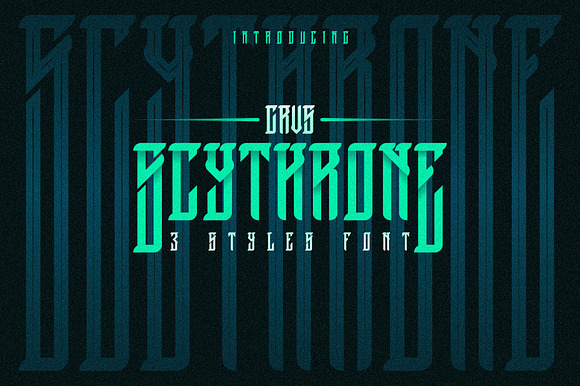
Grvs Scythrone Font
Grvs Scythrone Font by spaceshipstudio is a font selected for branding, posters, packaging, typography.
Why Grvs Scythrone Font is worth a look
Grvs Scythrone Font by spaceshipstudio fits naturally into Branding, posters, packaging, typography.